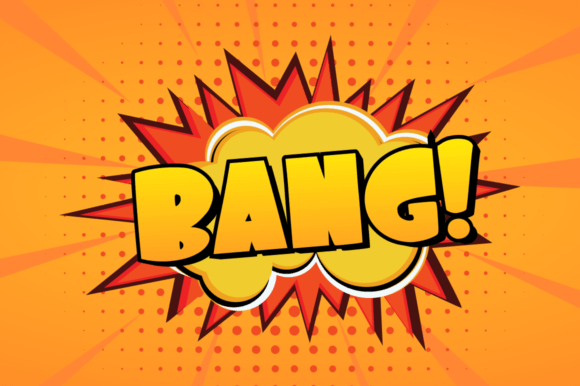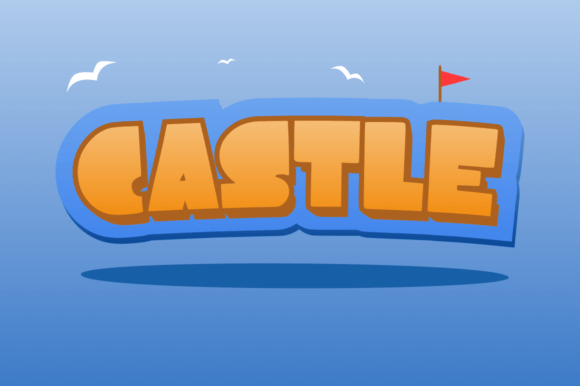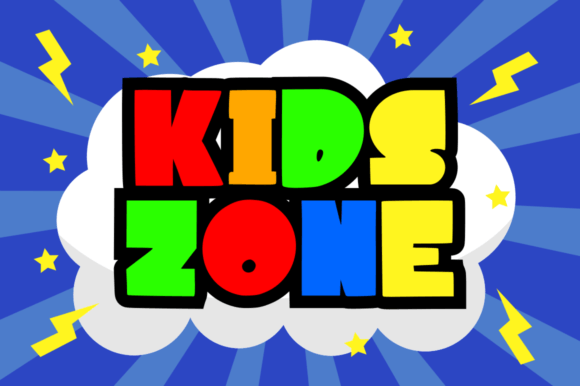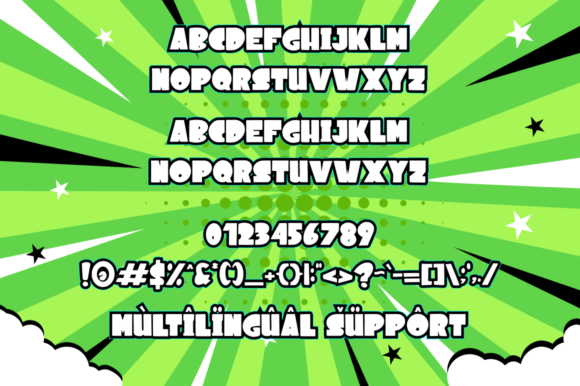
Introducing Comic Boom Font: The Ultimate Display Font for Dramatic Emphasis
Are you tired of using the same old fonts for your titles and headings? Look no further than Comic Boom Font, a cool and fun display font that’s perfect for adding a touch of drama and whimsy to your designs. In this article, we’ll take a closer look at what makes Comic Boom Font so special and how it can elevate your creations to the next level.
The Perfect Font for Dramatic Emphasis
Comic Boom Font is a bold and eye-catching display font that’s designed to make a statement. Its unique and playful design makes it perfect for titles or words that need a more dramatic emphasis. Whether you’re working on a game title, comic book, or any other project that requires a fun and attention-grabbing font, Comic Boom Font is the perfect choice.
A Great Asset to Your Font Library
Comic Boom Font is more than just a font – it’s a versatile design tool that can enhance any creation. Its versatility and wide range of applications make it a great asset to your font library. Whether you’re a designer, craftsperson, or DIY enthusiast, Comic Boom Font is a must-have font that can add a touch of personality and whimsy to your projects.
Use Comic Boom Font for:
- Game titles: Add a touch of excitement and energy to your game titles with Comic Boom Font.
- Comics: Create eye-catching comic book titles and headings with Comic Boom Font.
- Posters and flyers: Use Comic Boom Font to create bold and attention-grabbing posters and flyers.
- Logos and branding: Add a touch of personality and whimsy to your logos and branding with Comic Boom Font.
- Crafting and DIY projects: Use Comic Boom Font to add a personal touch to your crafting and DIY projects.
Why Choose Comic Boom Font?
So why choose Comic Boom Font over other display fonts? Here are just a few reasons:
- Unique design: Comic Boom Font has a unique and playful design that’s sure to grab attention.
- Versatility: Comic Boom Font can be used for a wide range of applications, from game titles to crafting projects.
- Easy to read: Despite its bold and playful design, Comic Boom Font is easy to read and understand.
- Fun and whimsical: Comic Boom Font adds a touch of fun and whimsy to any project.
Tips for Using Comic Boom Font
Here are a few tips for getting the most out of Comic Boom Font:
- Use it sparingly: Comic Boom Font is a bold and attention-grabbing font, so use it sparingly to avoid overwhelming your design.
- Pair it with other fonts: Comic Boom Font pairs well with other fonts, so experiment with different combinations to find the perfect look.
- Experiment with colors: Comic Boom Font looks great in a variety of colors, so don’t be afraid to experiment and find the perfect color scheme.
In conclusion, Comic Boom Font is a cool and fun display font that’s perfect for adding a touch of drama and whimsy to your designs. Its unique design, versatility, and ease of use make it a great asset to your font library. Whether you’re a designer, craftsperson, or DIY enthusiast, Comic Boom Font is a must-have font that can elevate your creations to the next level. So why wait? Download Comic Boom Font today and start creating!